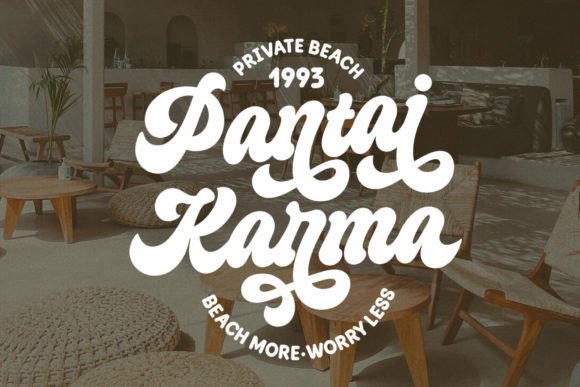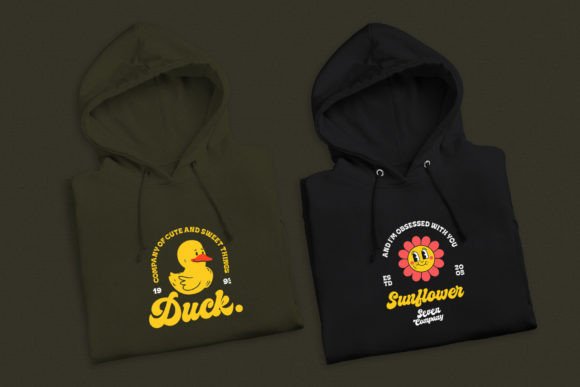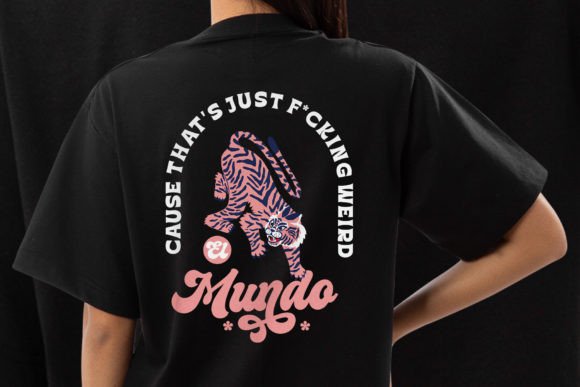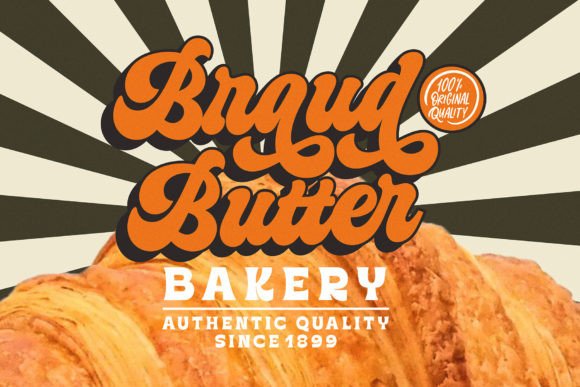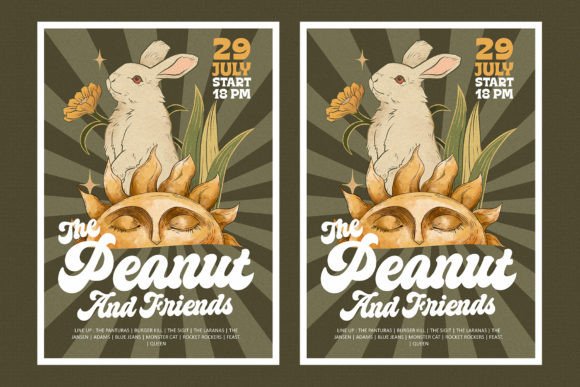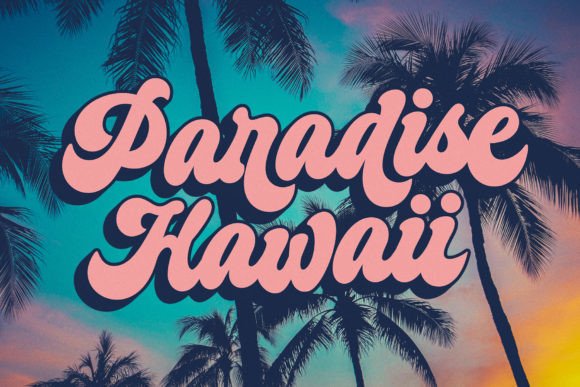
Discover the Timeless Elegance of Bali Bliss Font
Step into the world of vintage charm and timeless grace with “Bali Bliss” font! “Bali Bliss” is a script font that effortlessly channels the retro vibe, oozing with an irresistible charm that takes you back to a bygone era. Its retro-inspired design taps into the collective memory, making your designs not just beautiful but also deeply relatable.
The Essence of Bali Bliss Font
Bali Bliss font is a meticulously crafted script font that embodies the essence of classic elegance and sophistication. With its flowing lines and curvaceous strokes, this font is perfect for designers and crafters looking to add a touch of nostalgia and glamour to their projects. Whether you’re working on a branding campaign, a wedding invitation, or a packaging design, Bali Bliss font is sure to make your work stand out.
Key Features of Bali Bliss Font
- Retro-Inspired Design: Bali Bliss font boasts a retro-inspired design that is reminiscent of classic scripts from the past. Its vintage charm is sure to evoke a sense of nostalgia and timelessness.
- Elegant and Sophisticated: With its flowing lines and curvaceous strokes, Bali Bliss font exudes elegance and sophistication. It’s perfect for designs that require a touch of luxury and refinement.
- Highly Versatile: Bali Bliss font is highly versatile and can be used for a wide range of design projects, from branding and advertising to packaging and editorial design.
- Easy to Read: Despite its ornate and decorative nature, Bali Bliss font is surprisingly easy to read, making it perfect for body text and headlines.
Uses of Bali Bliss Font
Bali Bliss font is a versatile font that can be used for a variety of design projects, including:
- Branding and Advertising: Use Bali Bliss font to create stunning brand identities, logos, and ad campaigns that evoke a sense of nostalgia and sophistication.
- Wedding and Event Design: Add a touch of elegance and romance to your wedding invitations, menus, and event branding with Bali Bliss font.
- Packaging Design: Use Bali Bliss font to create eye-catching packaging designs that stand out on store shelves.
- Editorial Design: Bali Bliss font is perfect for editorial design projects, such as magazines, newspapers, and blogs, where a touch of elegance and sophistication is required.
Tips for Using Bali Bliss Font
Here are some tips for using Bali Bliss font effectively in your designs:
- Pair with Neutral Colors: Pair Bali Bliss font with neutral colors, such as black, white, and gray, to create a striking contrast that makes your design pop.
- Use for Headlines and Titles: Use Bali Bliss font for headlines and titles to add a touch of elegance and sophistication to your design.
- Keep it Simple: Don’t over-accessorize your design. Keep it simple and let Bali Bliss font be the star of the show.
In conclusion, Bali Bliss font is a stunning script font that is sure to add a touch of vintage charm and timeless elegance to your designs. With its retro-inspired design, elegant and sophisticated lines, and high versatility, Bali Bliss font is perfect for designers and crafters looking to create beautiful and relatable designs. So why wait? Download Bali Bliss font today and start creating your own masterpieces!